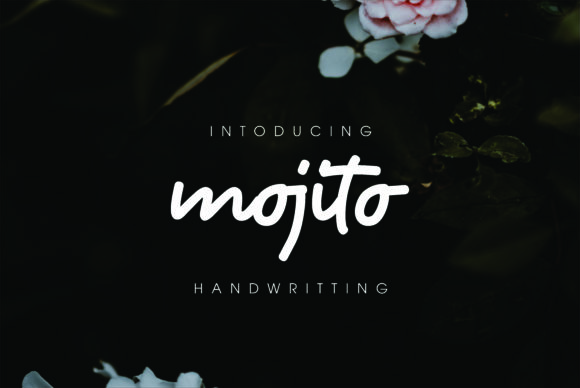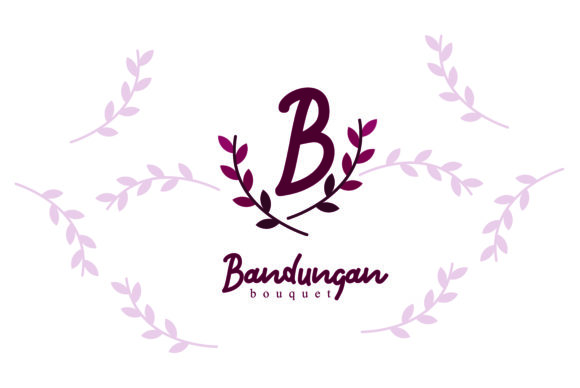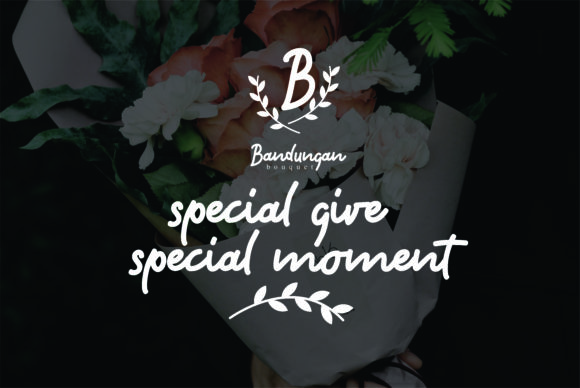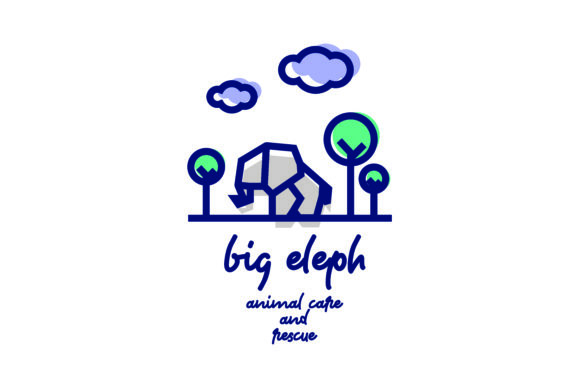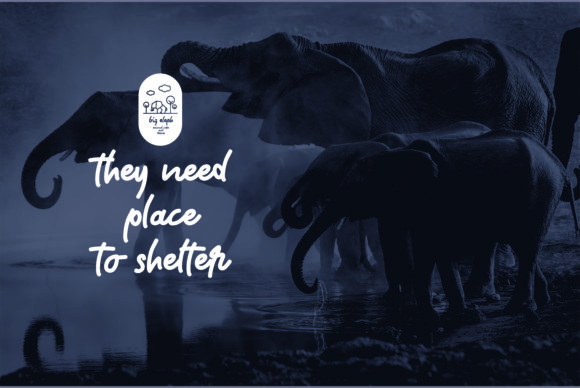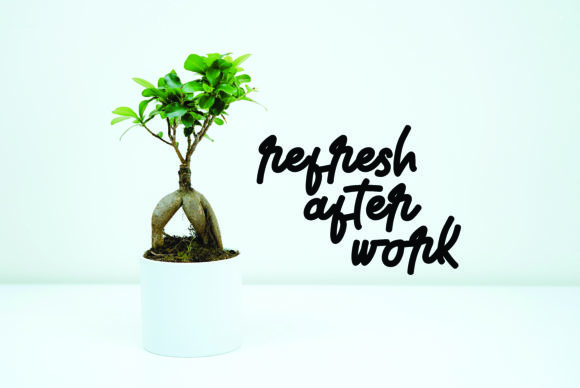
Mojito Font
About Mojito Font
Mojito is a beautiful and stunning handwritten font with a contemporary charm. Fall in love with this light and incredibly elegant font.